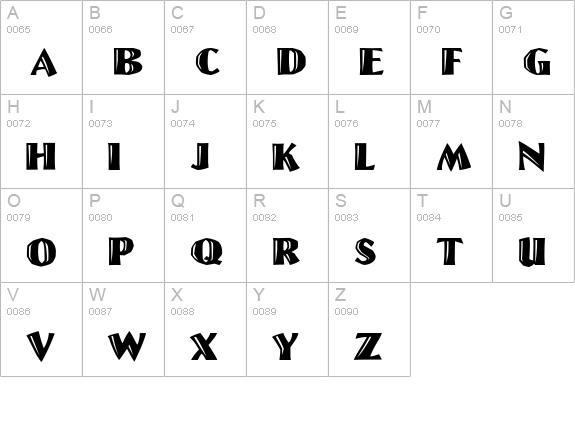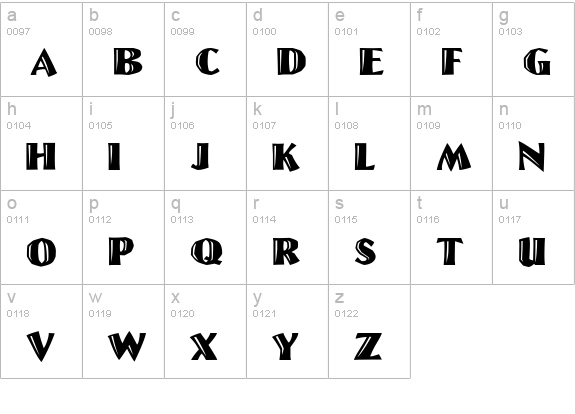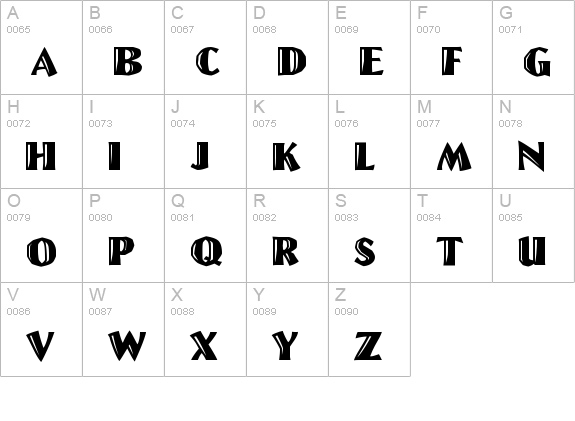
LinoLetterCut Font Details
LinoLetterCut font is a versatile and stylish typeface that exudes a classic yet modern aesthetic. Its clean lines and sharp edges give it a sophisticated and timeless look, making it perfect for a wide range of design projects. The unique letterforms of LinoLetterCut font are inspired by traditional letterpress printing techniques, adding a touch of vintage charm to any design. This font is not only visually appealing, but also highly legible, making it suitable for both print and digital applications. Whether you're creating elegant invitations, eye-catching posters, or sleek branding materials, LinoLetterCut font is sure to make a statement. Best of all, LinoLetterCut font is available for free download at FontsMarket.com. So why wait? Add this stunning font to your collection today and elevate your designs to the next level.